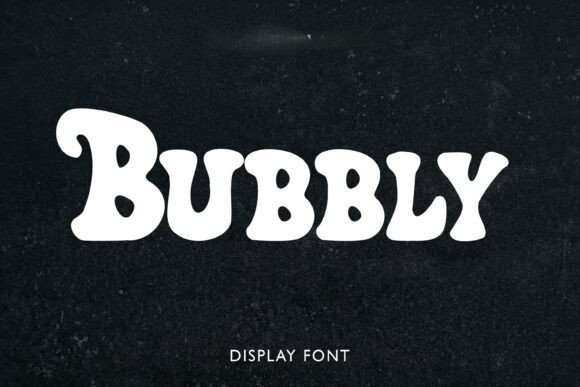
That’s where the Bubbly Serif Font comes in – a captivating font designed to complement a wide range of creative projects. Whether you’re a seasoned designer or just starting out, this versatile font adapts effortlessly to your unique style and artistic expression. With its elegant, modern, and playful touch, the Bubbly Serif Font is the perfect addition to your design toolkit.
As a designer, you know how important it is to have the right tools at your disposal. That’s why the Bubbly Serif Font is a valuable asset for any creative project – from branding and book covers to posters, packaging, and merchandise.
Bubbly Serif Font Key Features
- Unique Characteristic: Distinctive bubbly shapes and rounded edges give the font a playful and friendly feel, making it suitable for creative and informal designs.
- Kerning and Ligatures: Includes advanced kerning and ligature features, ensuring smooth text flow and optimal readability.
Bubbly Serif Font Review
Overall, I think the Bubbly Serif Font is a solid choice for designers looking for a unique and eye-catching serif font. ✨ Here are some things that work well:
- The font’s playful, bubbly personality shines through in its intricate details and rounded edges, making it perfect for branding and marketing materials.
- The font’s high x-height and strong vertical stress give it a sense of stability and balance, making it easy to read and understand.
- The font’s wide range of weights and styles (from Light to Bold) offer a lot of flexibility for designers to experiment with different moods and atmospheres.
- The font’s complexity can make it difficult to use at small sizes or in low-resolution contexts.
- The font’s rounded edges can sometimes make it difficult to distinguish between similar letters (e.g. ‘b’ and ‘d’).
- The font’s style may not be suitable for formal or professional applications where a more conservative font is desired.
Overall, I would recommend the Bubbly Serif Font to designers looking for a fun and creative solution for their next project. While it may have some limitations, its unique personality and flexibility make it a great choice for the right project.
For best results, use Bubbly Serif Font for headings and titles, as it adds a touch of elegance and sophistication to your design.
For best results, use Bubbly Serif Font for titles and headings, and pair it with a sans-serif font for body text.
For best results, use Bubbly Serif Font for headings and titles, and pair it with a clear sans-serif font for body text.
Bubbly Serif Font is perfect for:
Creating elegant and sophisticated designs for wedding invitations, menus, and other special occasions.
Designing vintage-inspired posters, flyers, and brochures.
Adding a touch of luxury and sophistication to your branding and marketing materials.
Compared to Bubbly Serif Font, Playfair Display has a more classic and traditional feel, with intricate details and flourishes. While Bubbly Serif Font is more playful and whimsical, Playfair Display is more formal and sophisticated.
Great Vibes is a modern and stylish serif font, designed to evoke a sense of elegance and sophistication. It is perfect for use in fashion, luxury, and high-end branding.